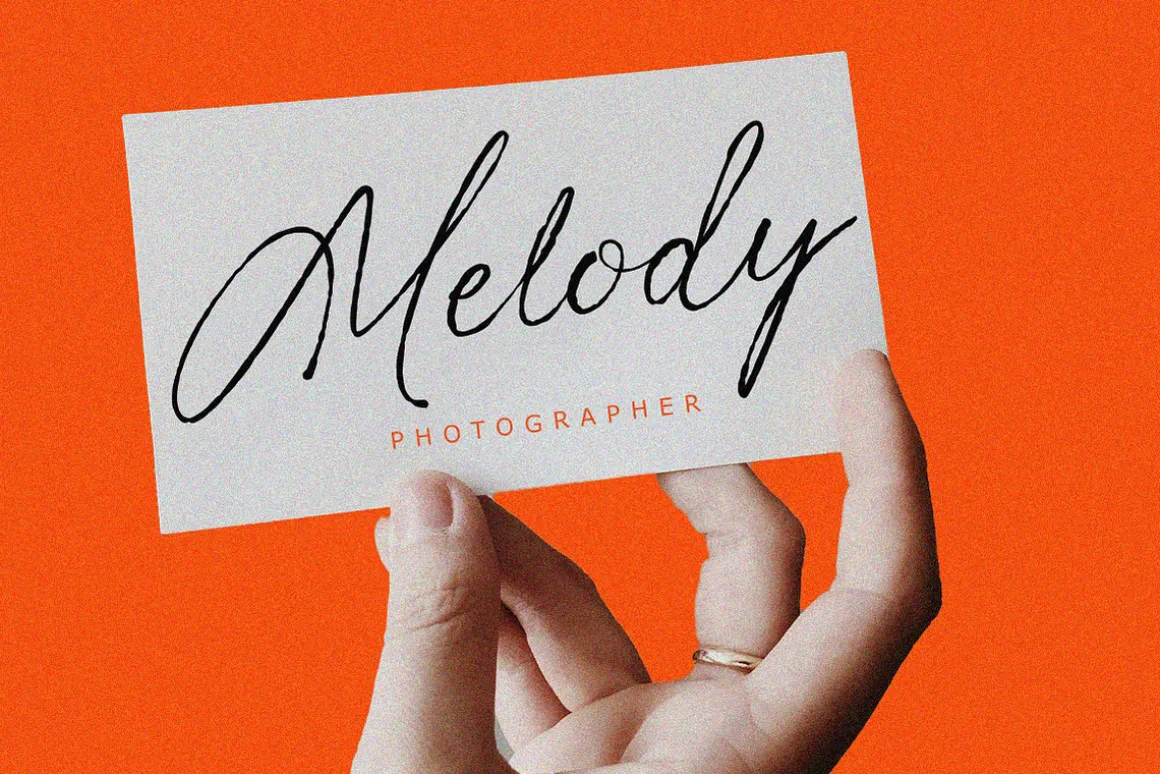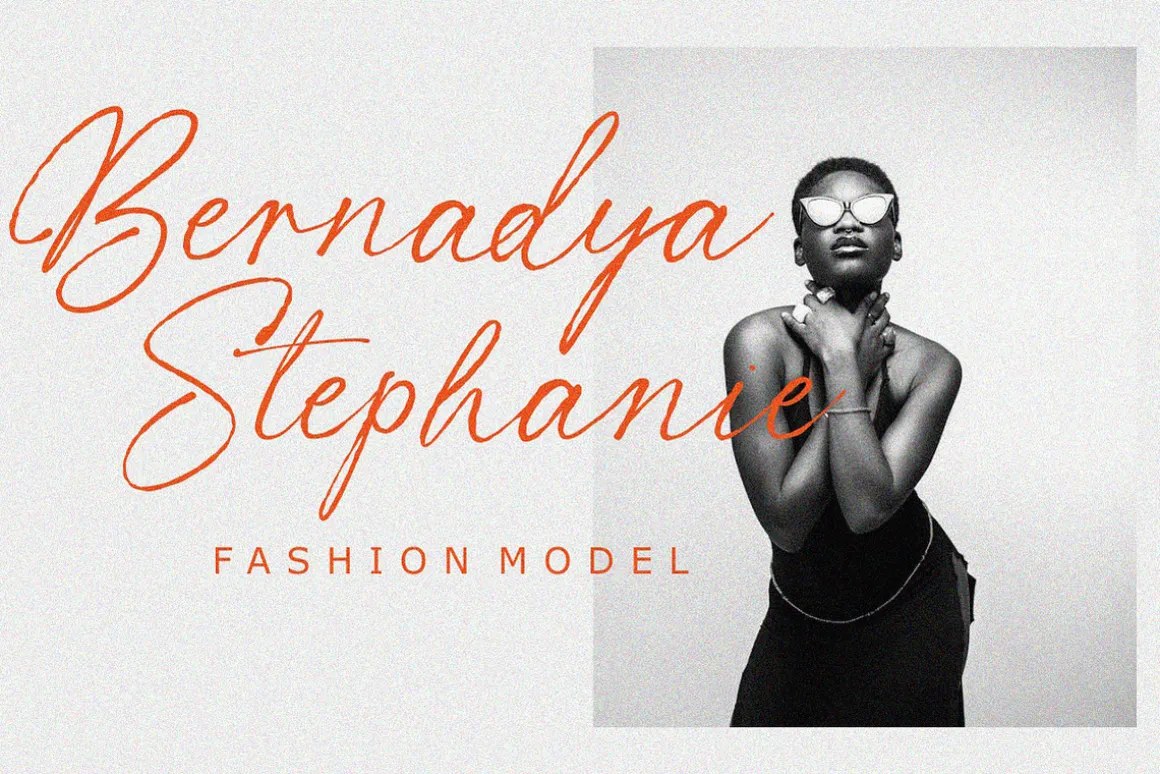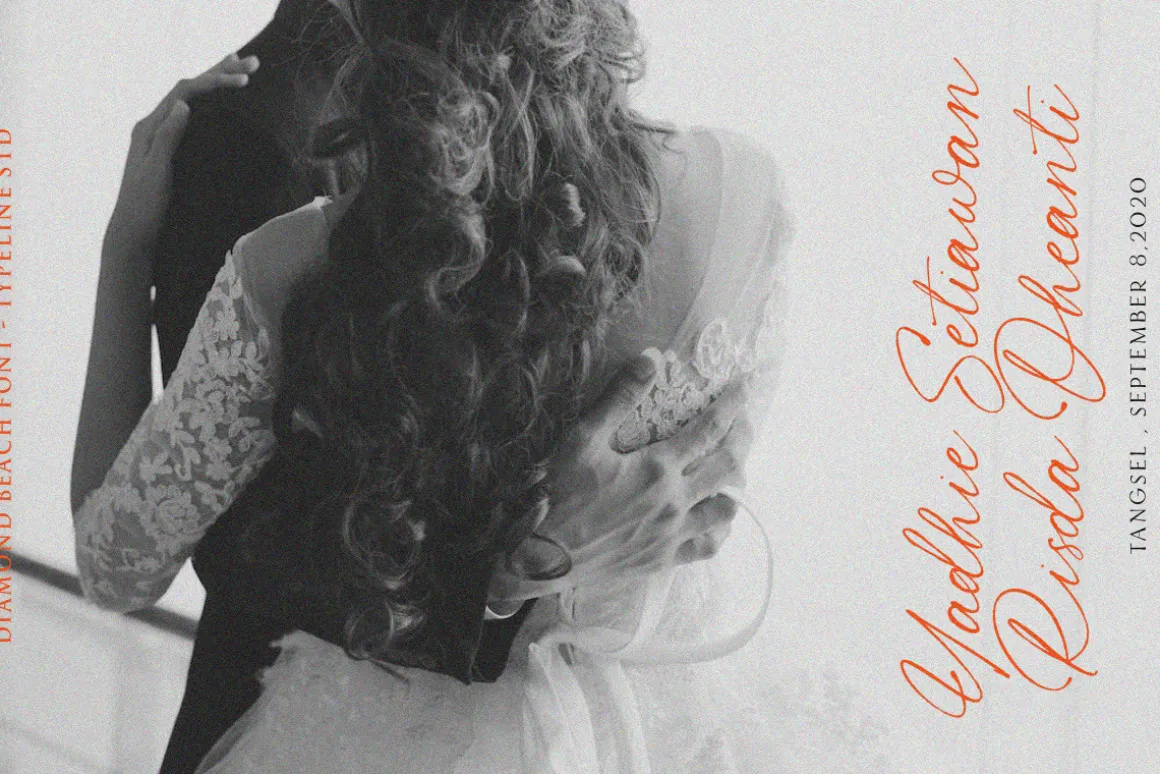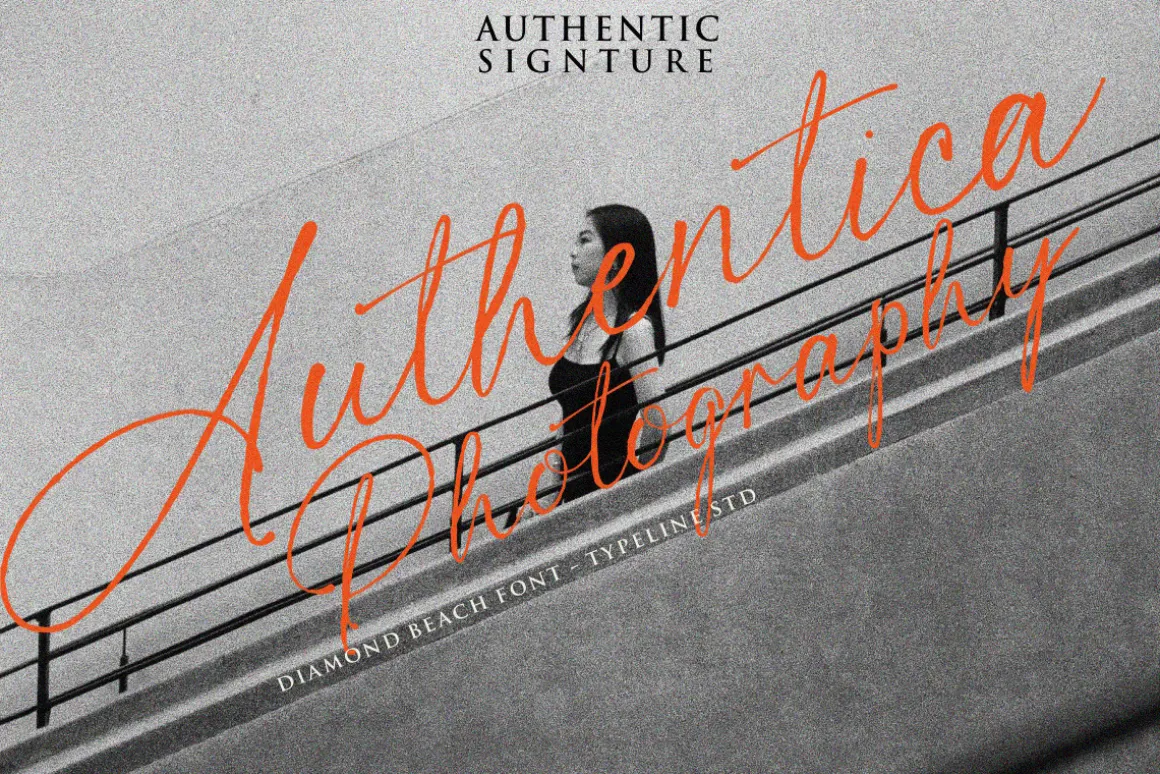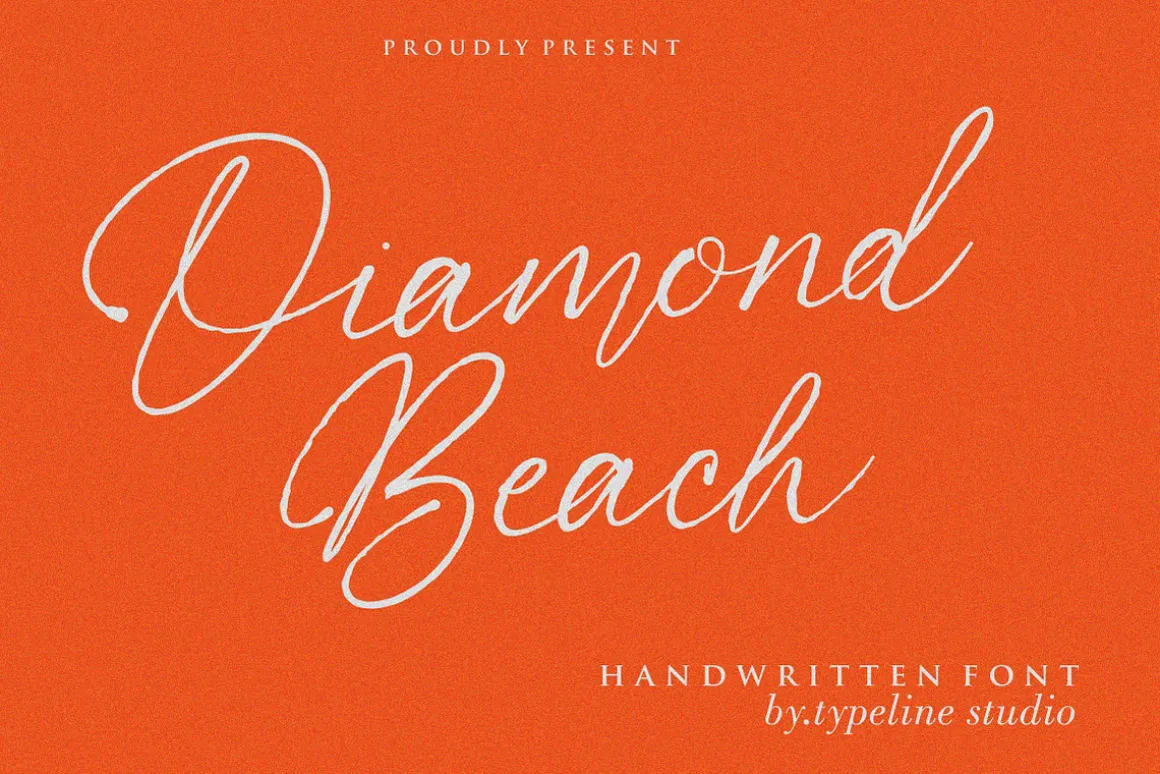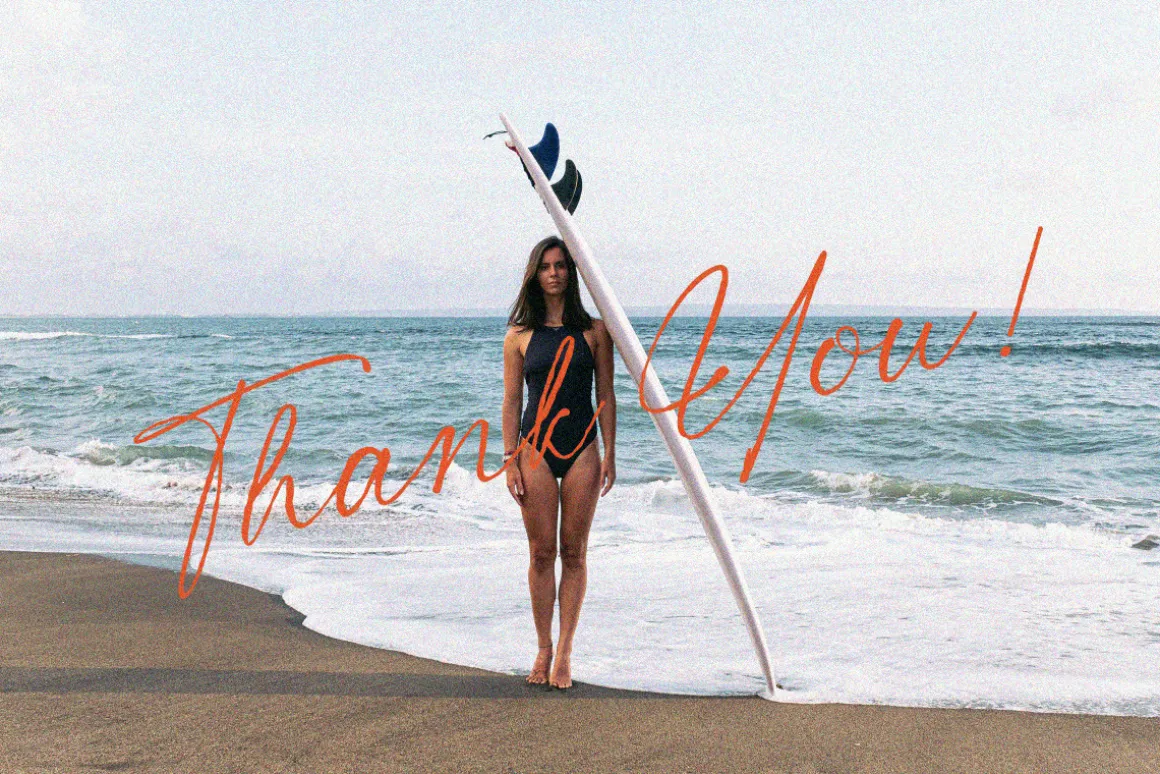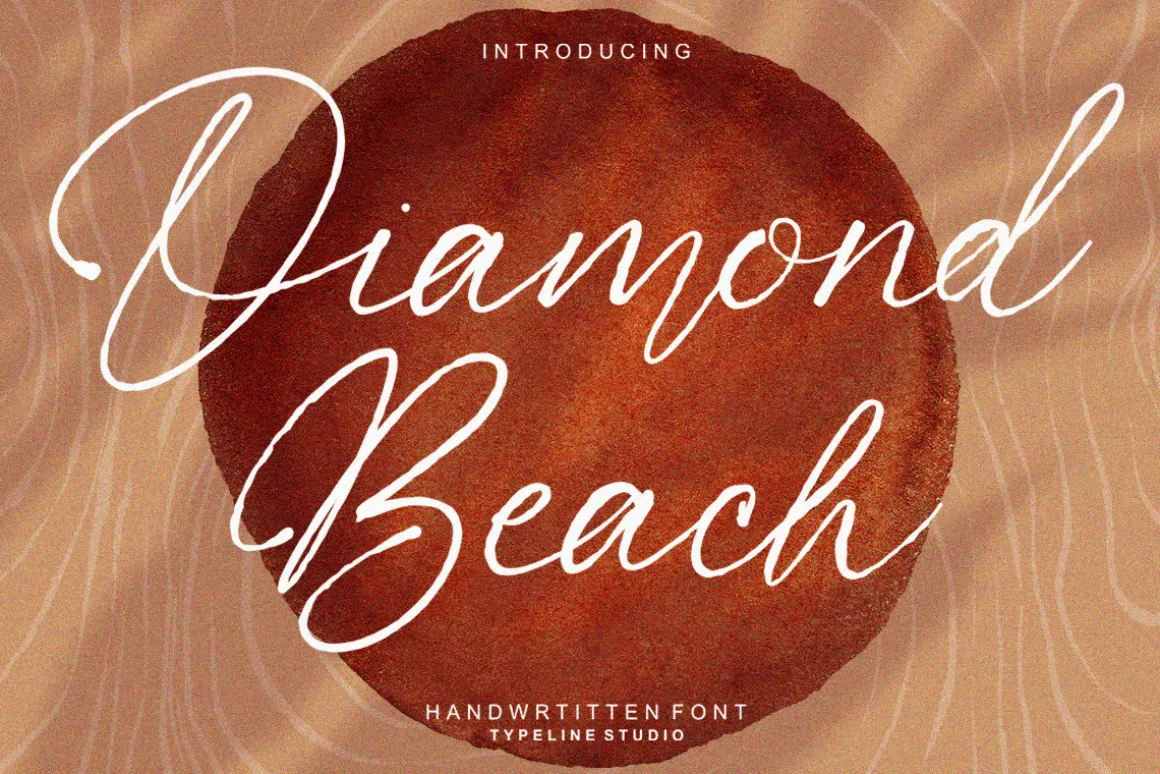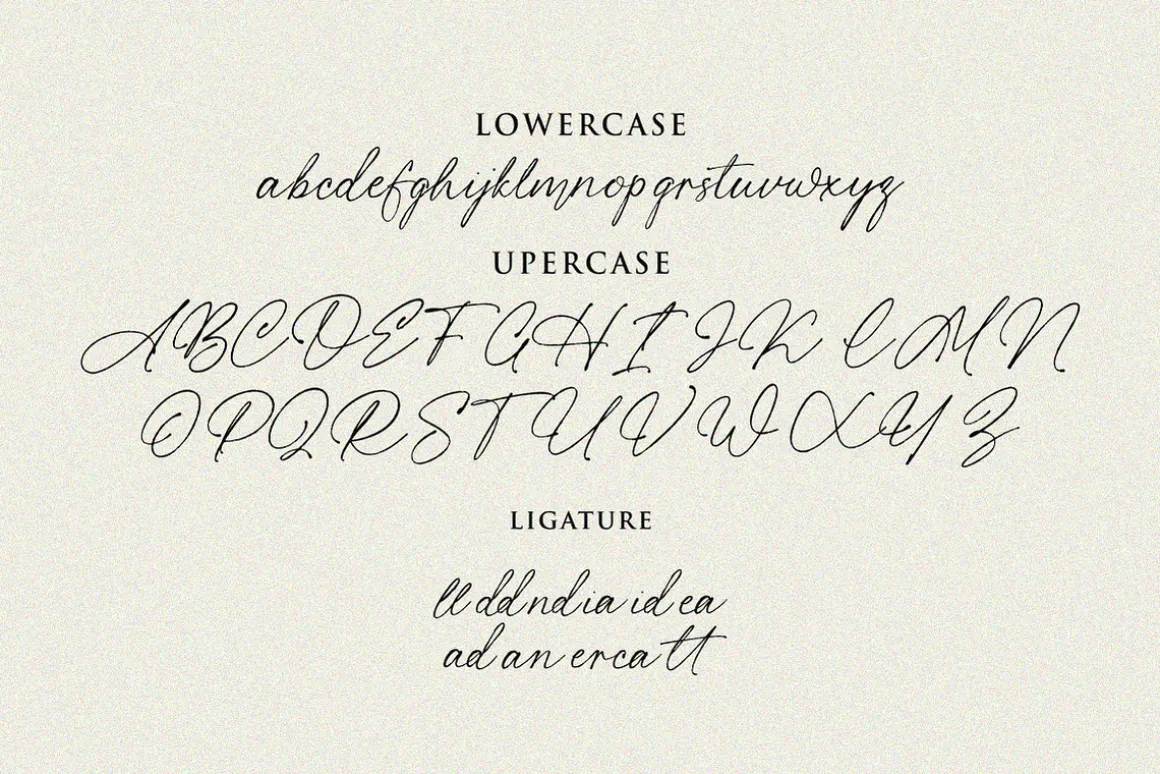
Diamond Beach is a whimsical and elegant handwritten font that captures the relaxed yet sophisticated charm of a beachside retreat. Inspired by the fluidity of handwritten script and the carefree spirit of coastal living, this font blends legibility with artistic flair. Each character features delicate, flowing strokes reminiscent of sea breezes and sandy shores, making it perfect for adding a personal touch to invitations, greeting cards, or any design that calls for a touch of refined spontaneity.
The font’s fluid curves and varied letterforms mimic the natural rhythm of handwriting, while its clean, gentle lines ensure readability. Diamond Beach includes a range of stylistic alternates and ligatures, allowing for creative customization and a unique touch in every piece. Ideal for both casual and formal applications, it brings a breezy elegance to your projects, evoking images of sunlit beaches and sparkling waters with every letter.